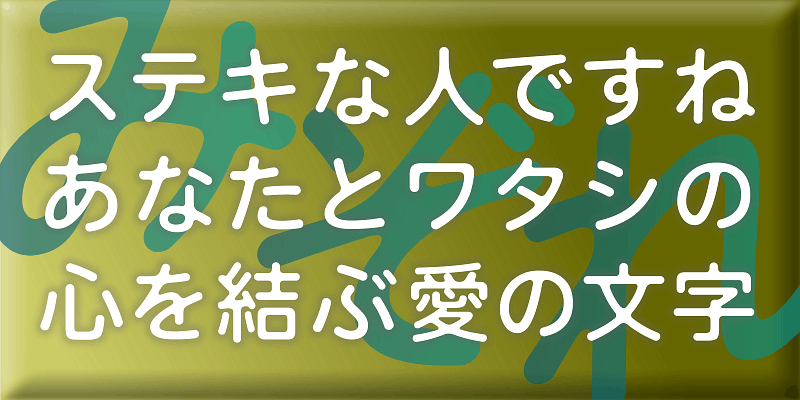
This is a round gothic typeface with fine simplicity. Its rounded inside corners give the typeface a unique atmosphere, like Japan’s humid air. The softness of its appearance will help convey your message to the reader effectively.
Through typeface designs, we aim to convey a meaning beyond the textual content. Typefaces that allow users to clearly convey their full meaning. Typefaces that both typesetters and readers will enjoy. These are the kind of typefaces that we aim to create.